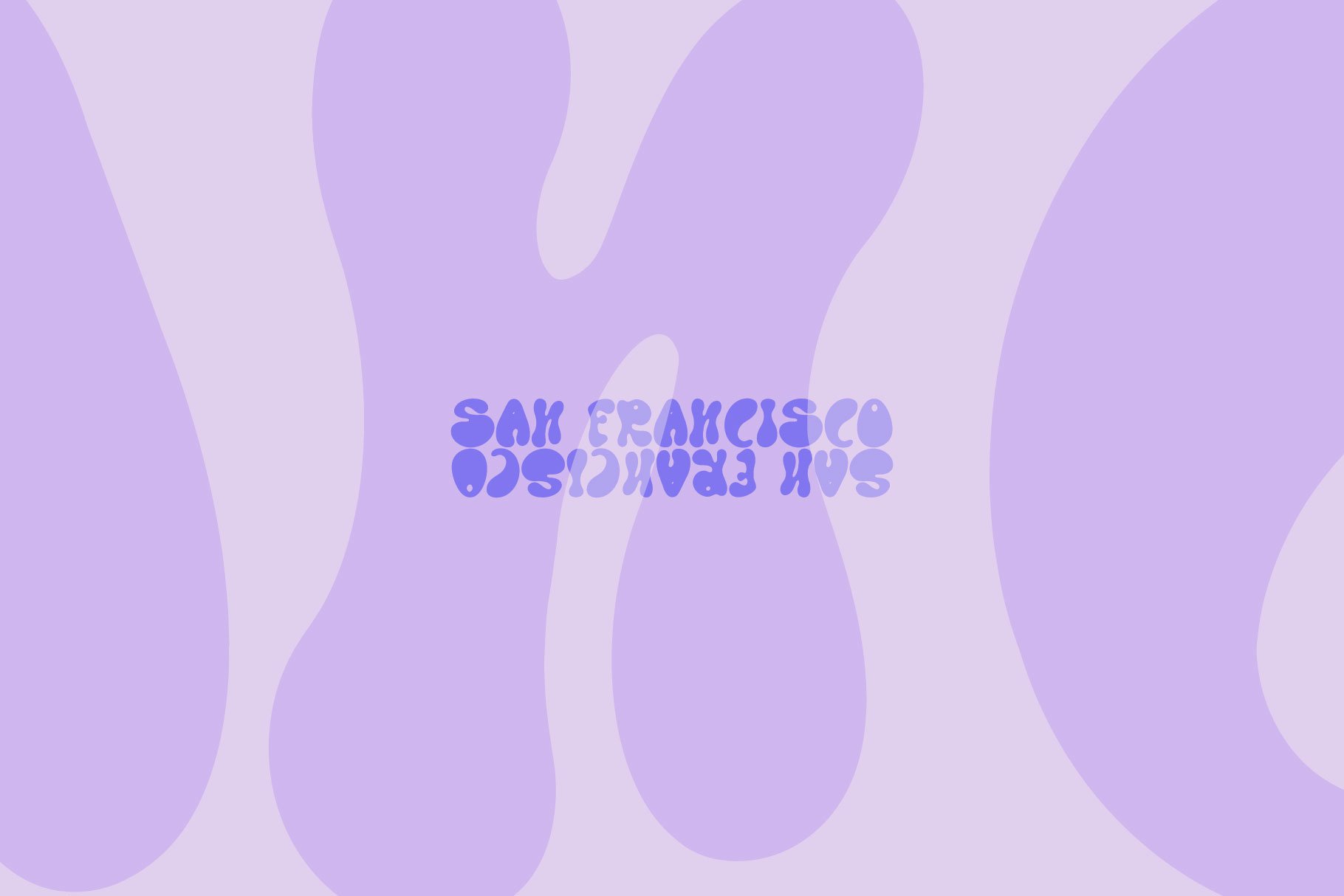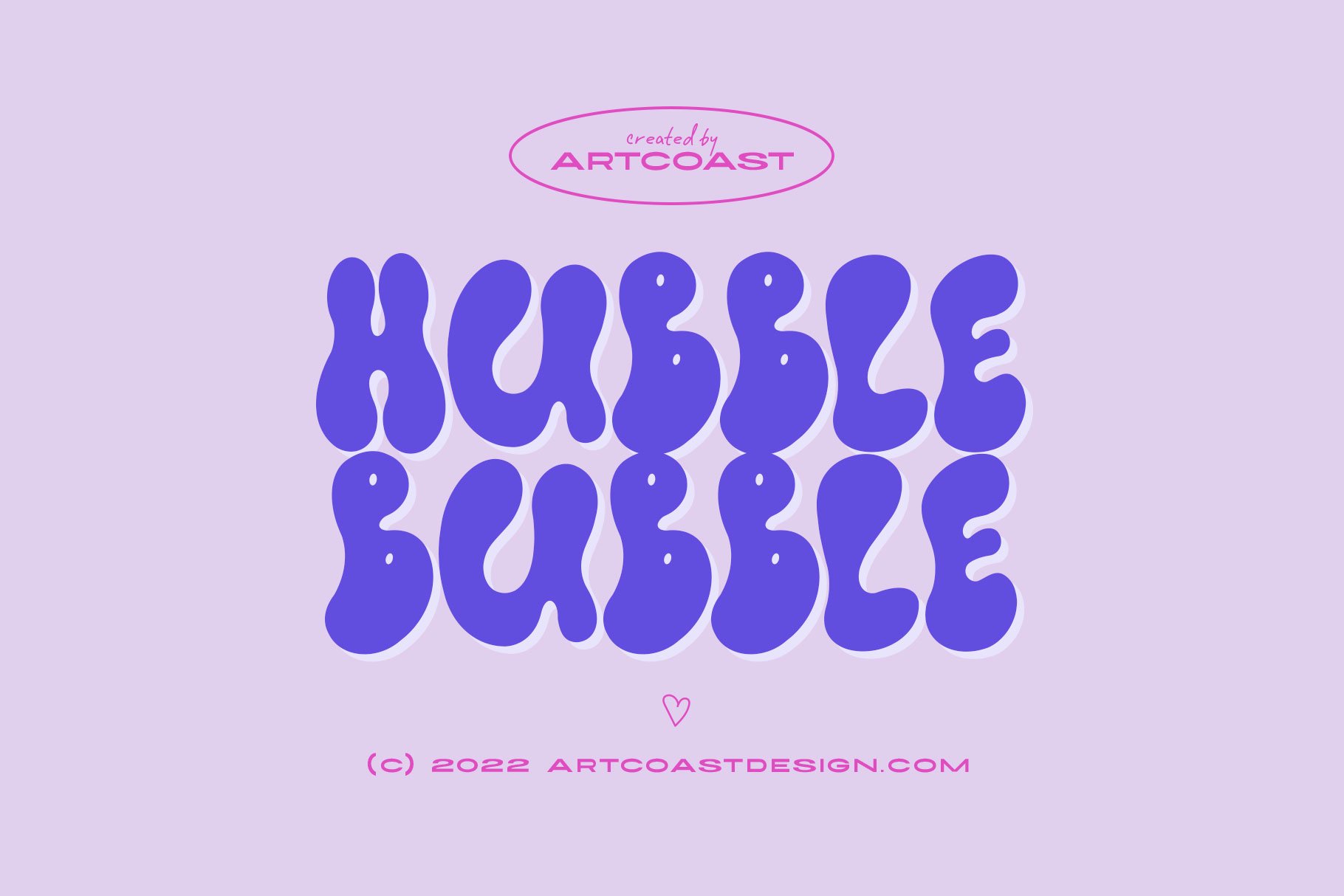
Retro Bubble Font - Hubble Bubble Font for Playful Designs
Introducing the Hubble Bubble Font! This playful and fun font is perfect for social media, quotes, clothing, and many other projects. The retro design of this font creates a hippie and carefree atmosphere that is sure to stand out from the crowd.